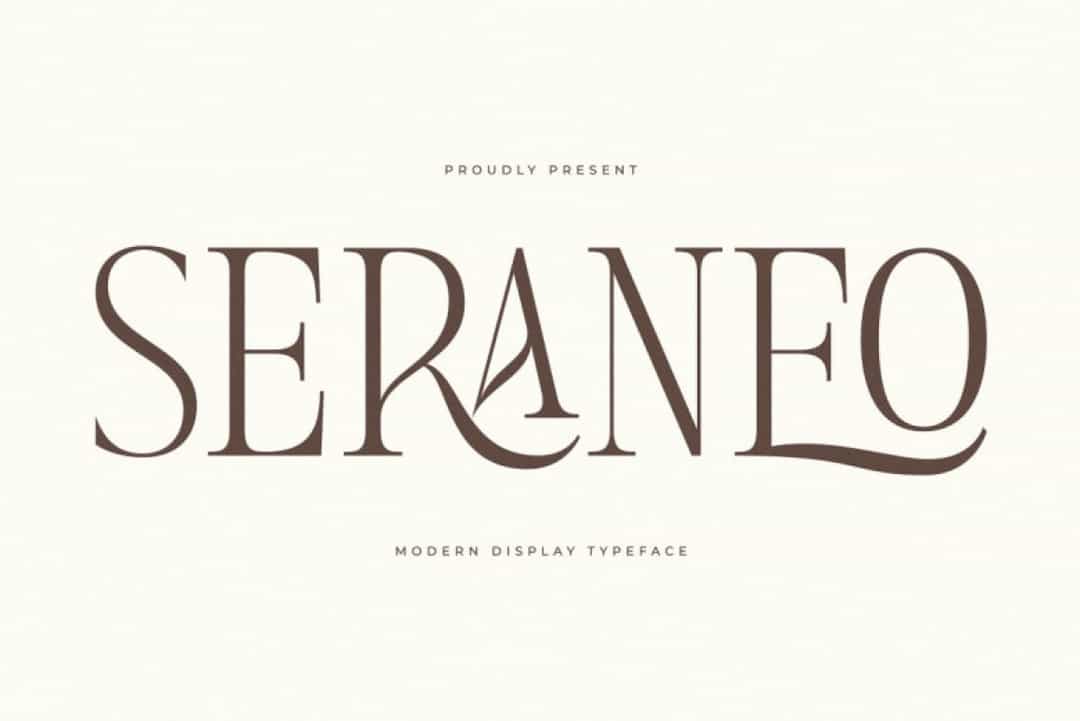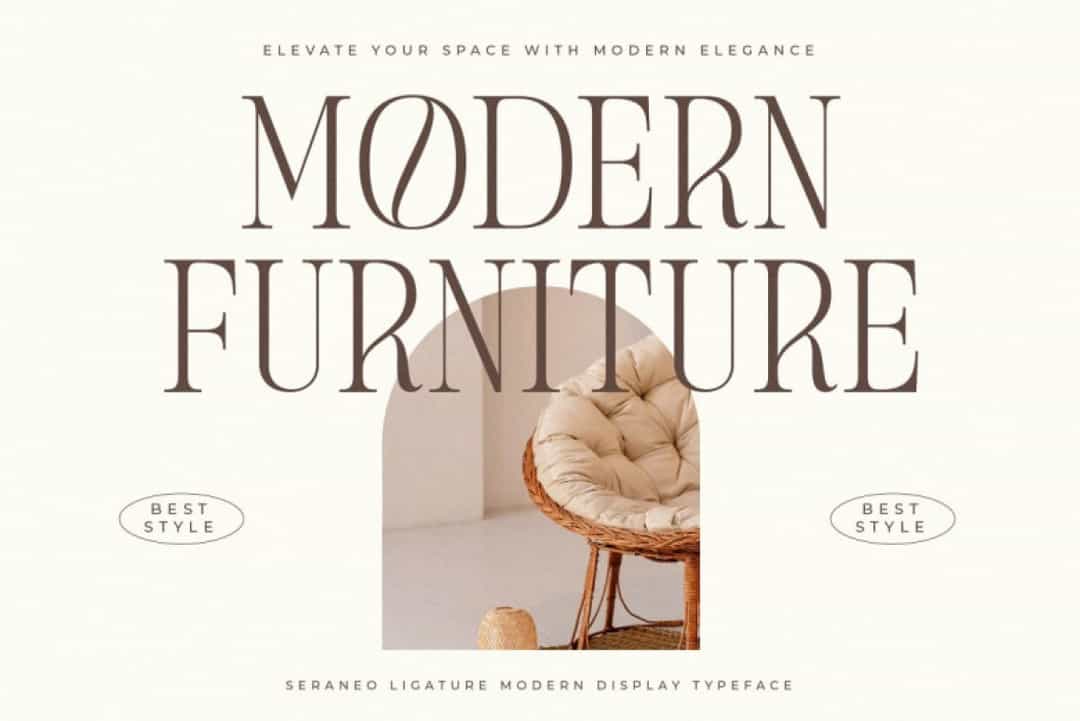
Discover Seraneo Font, part of the Serif Display collection—a versatile and unique font perfect for adding a personal touch to your projects. Download it for free and enjoy crafting designs with style, from invitations to social media posts. This font is available exclusively for personal use, giving you the freedom to create without limits. Unlock your creativity with Seraneo Font today!
Seraneo from Letterena is an elegant show serif typeface perfect for use in logos, branding designs, homeware products packaging designs design mugs quotes shopping bags posters T-shirts book covers name cards or any other project requiring show serif typefaces.